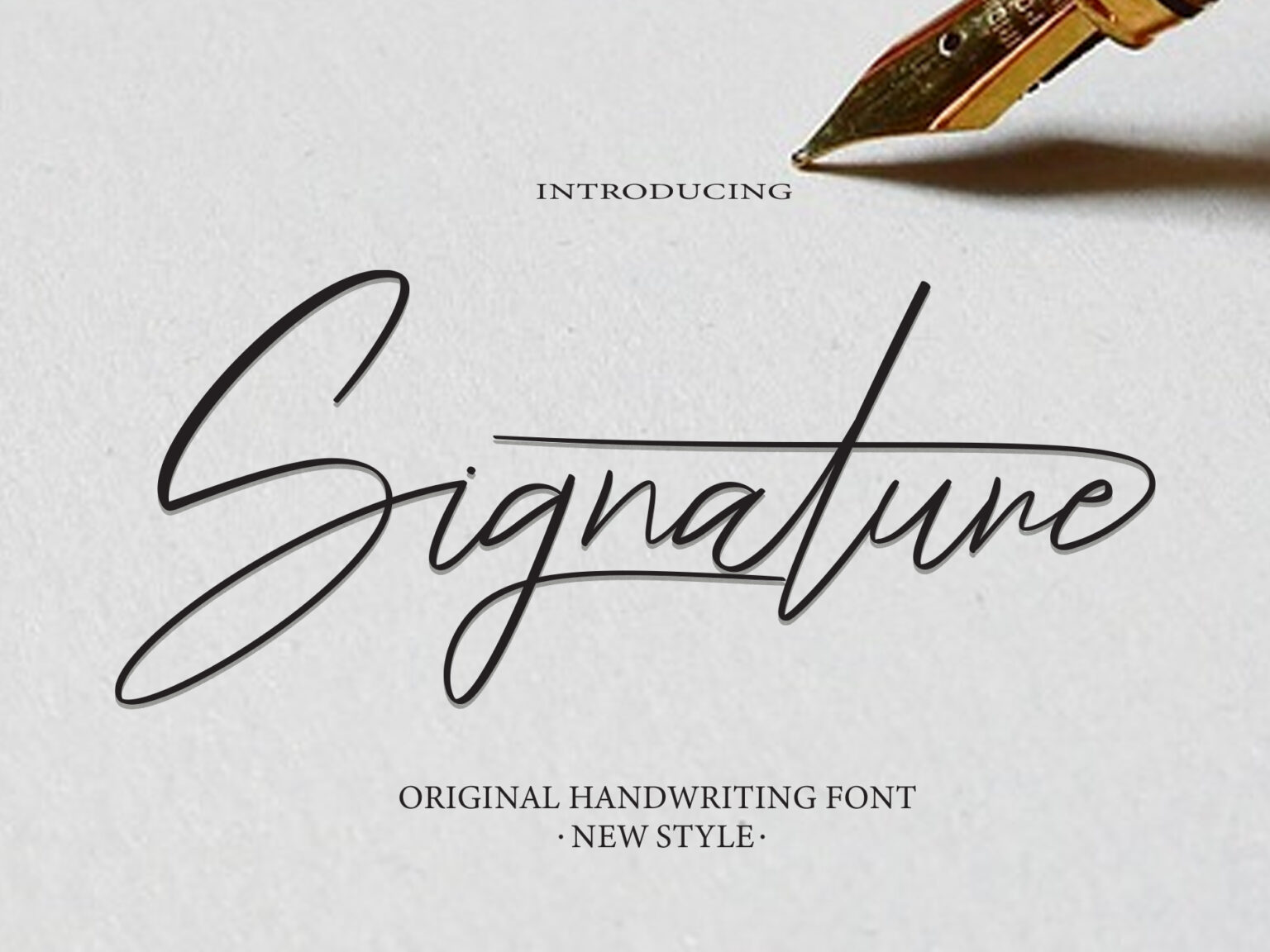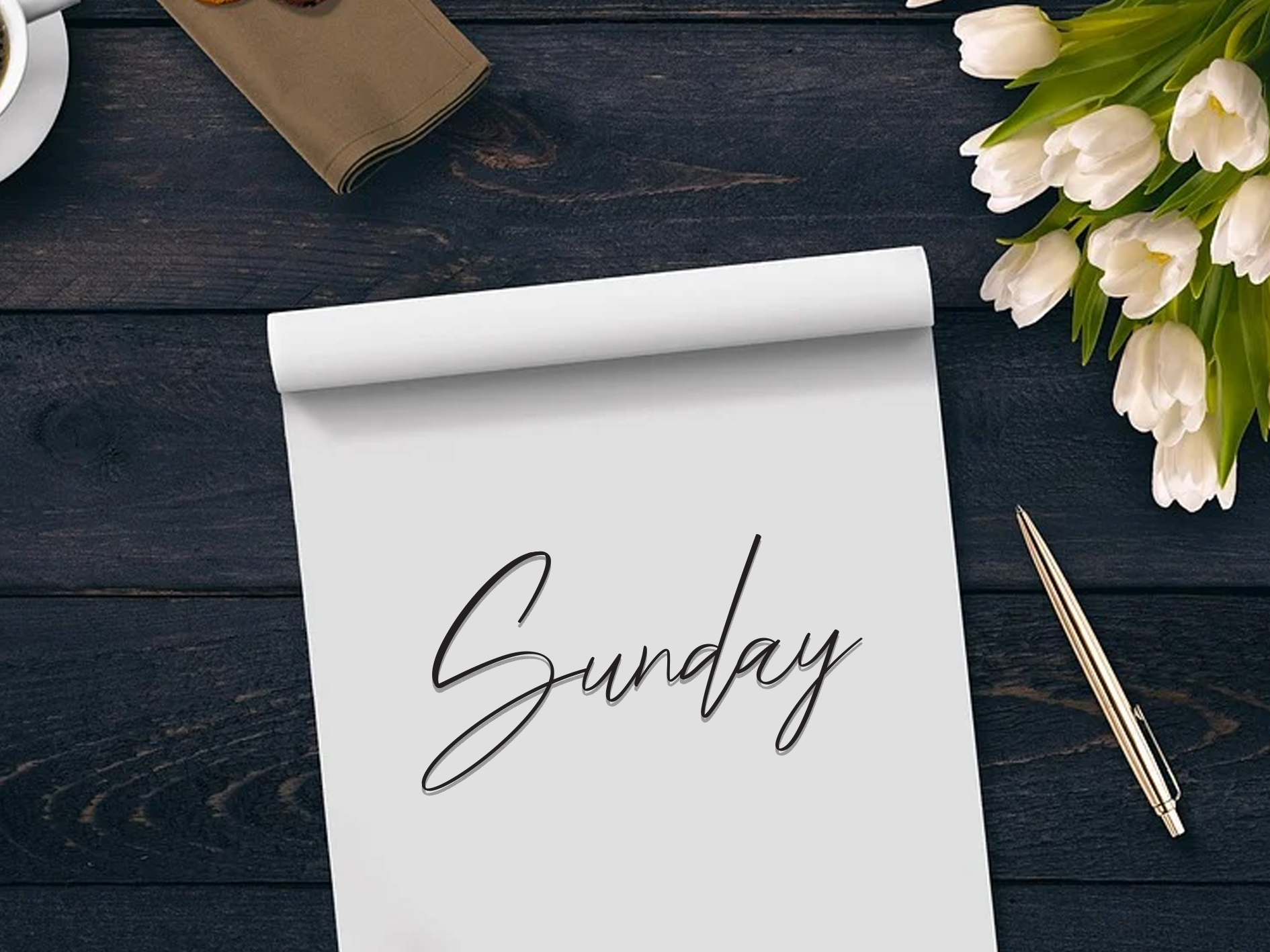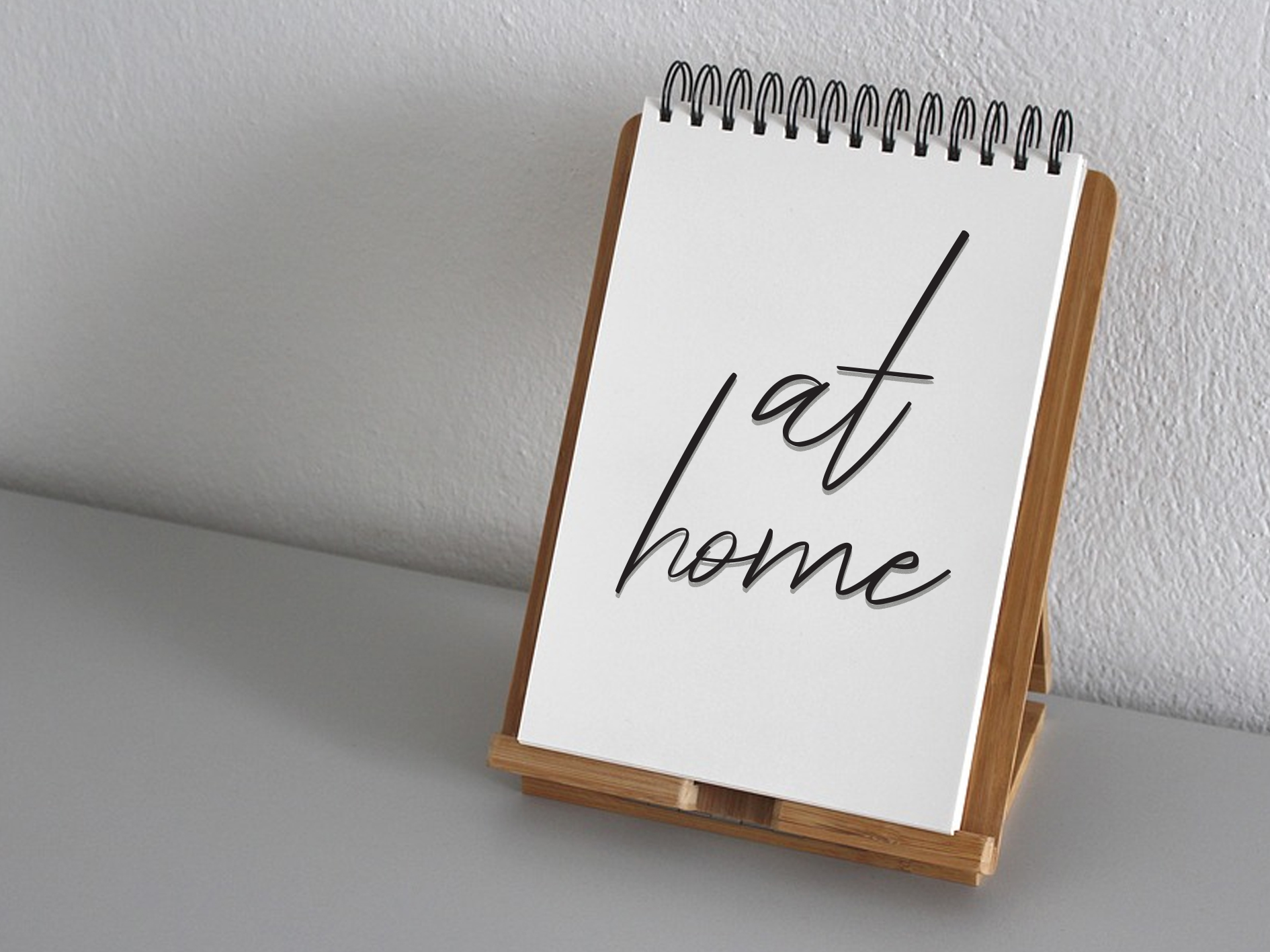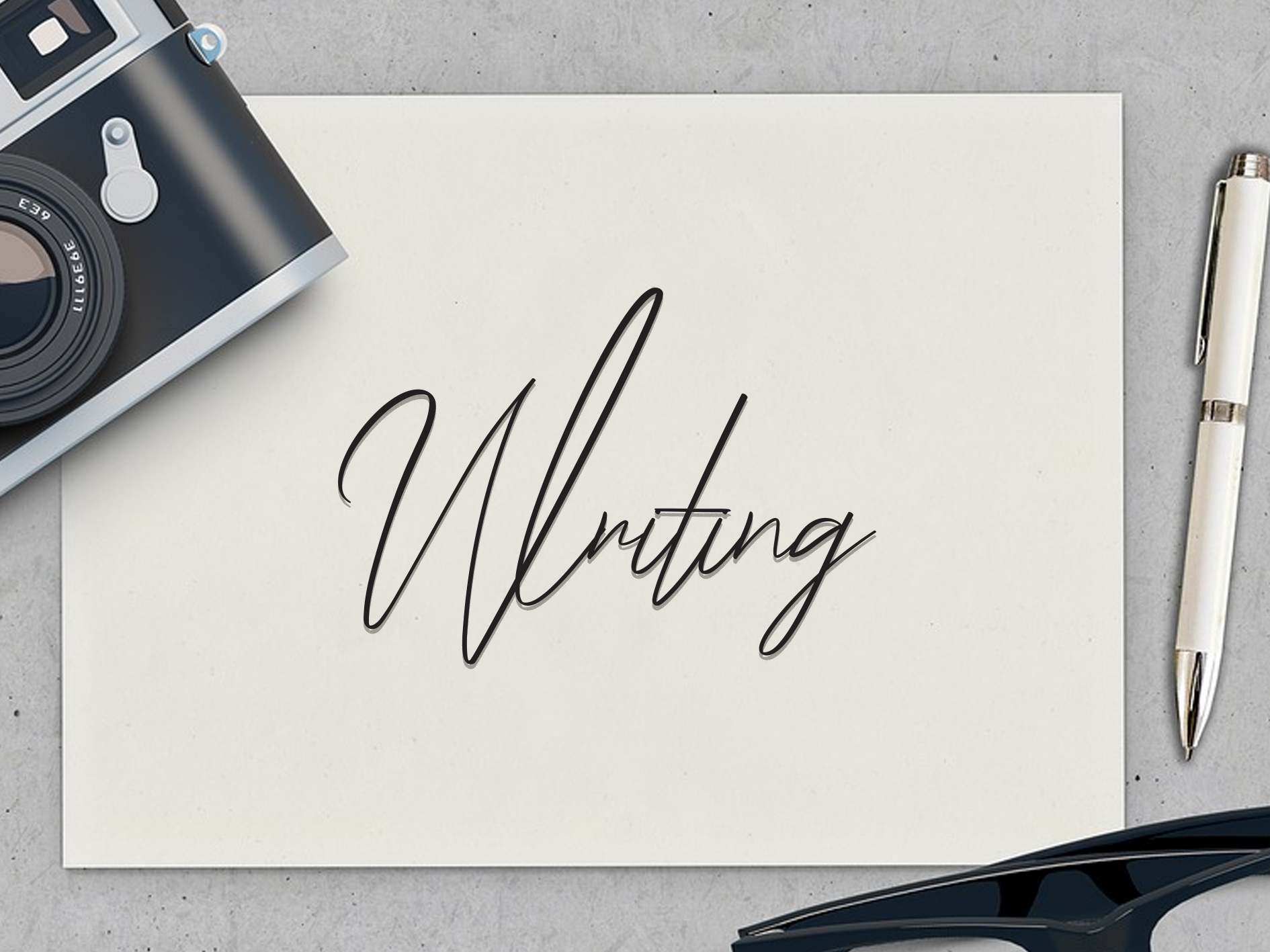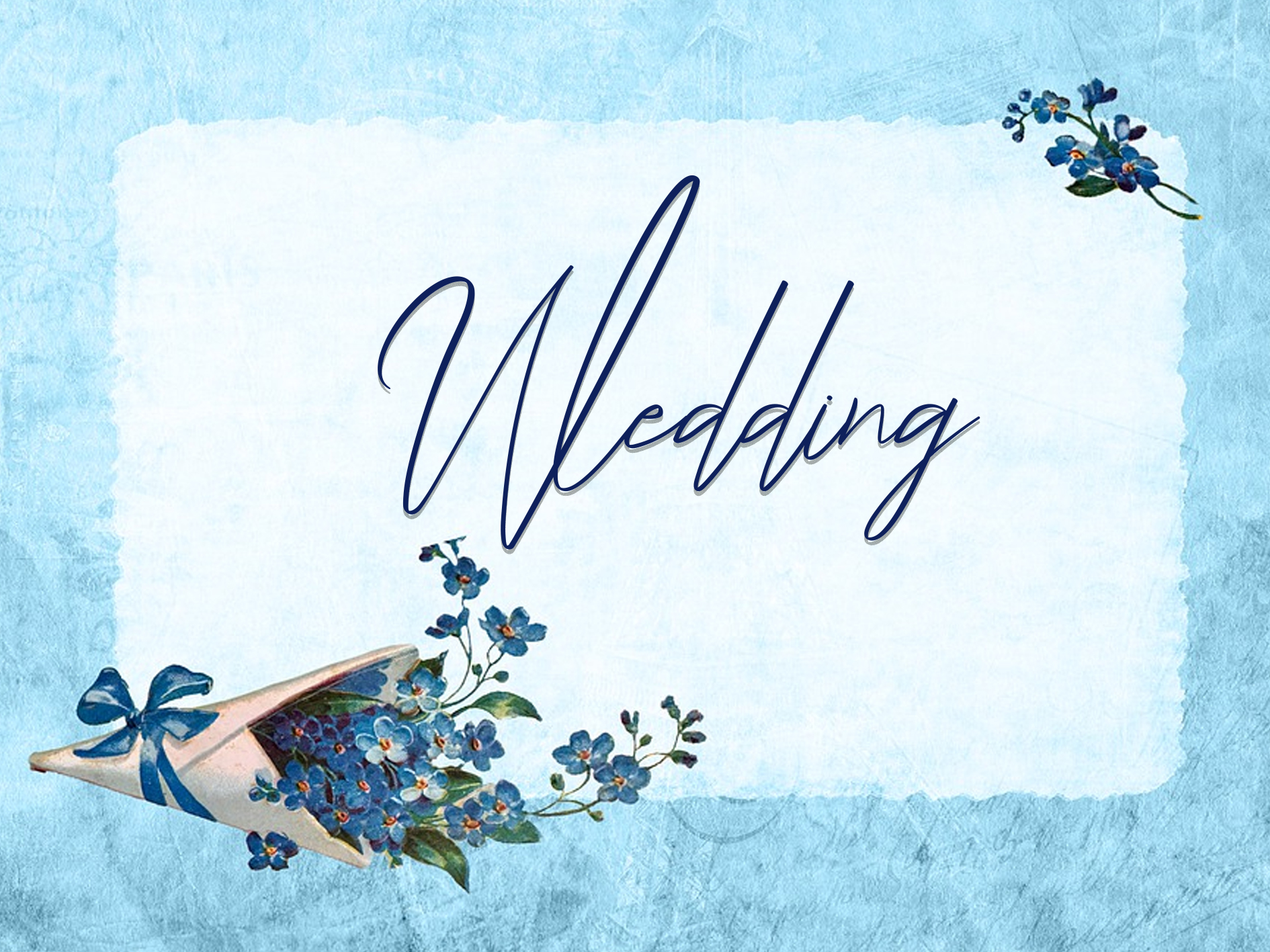
Signature Script Typeface
It’s a handwritten font that is carefully crafted to produce cool and unique vibes. This font can be used to write letters, invitations, food products and more.
This is a beautiful and unique handwritten font, with grooves crafted to produce beautiful lettering for use in a wide variety of products as desired. This product link; https://www.creativefabrica.com/de/product/signature-68/ref/1679118/